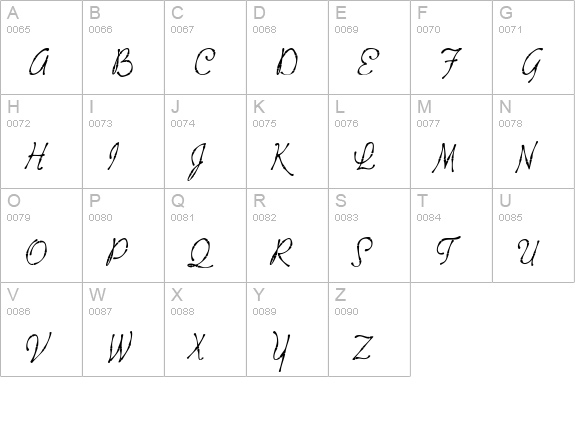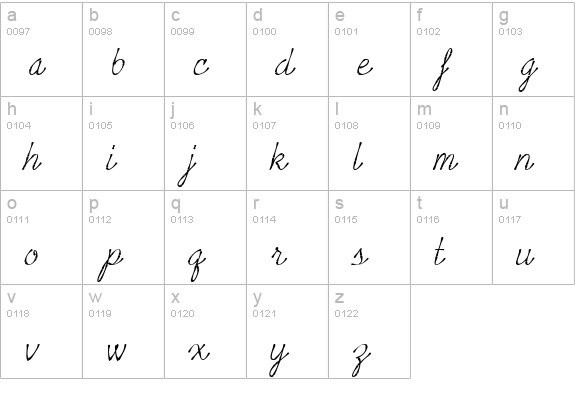
Tropicali Script BTN Bamboo Oblique Font Details
Tropicali Script BTN Bamboo Oblique is a distinctive, italic variant in the Tropicali typeface family \xE2\x80\x94 well suited to design and typography projects.
Tropicali Script BTN Bamboo Oblique font is the epitome of elegance and sophistication. Inspired by the lush tropics, this font captures the essence of nature with its flowing curves and delicate brush strokes. The unique oblique angle adds a touch of modernity, making it perfect for a wide range of design projects. With its smooth and fluid lines, this font exudes a sense of calmness and tranquility. It is ideal for creating stunning logos, branding materials, invitations, and more. Whether you're designing for a beach resort, a tropical-themed event, or simply want to add a touch of exoticism to your project, Tropicali Script BTN Bamboo Oblique font will elevate your design to new heights. What makes this font even more appealing is that it is freely available to download at FontsMarket.com. This means that you can infuse your designs with the beauty of Tropicali Script BTN Bamboo Oblique without any additional costs. Its versatility and affordability make it a must-have for any designer or creative professional. So, if you're looking to add a touch of tropical flair to your designs, look no further than Tropicali Script BTN Bamboo Oblique font. Download it freely from FontsMarket.com and unlock the endless possibilities that this font has to offer. Embrace the beauty of nature and let your designs flourish with this stunning font.